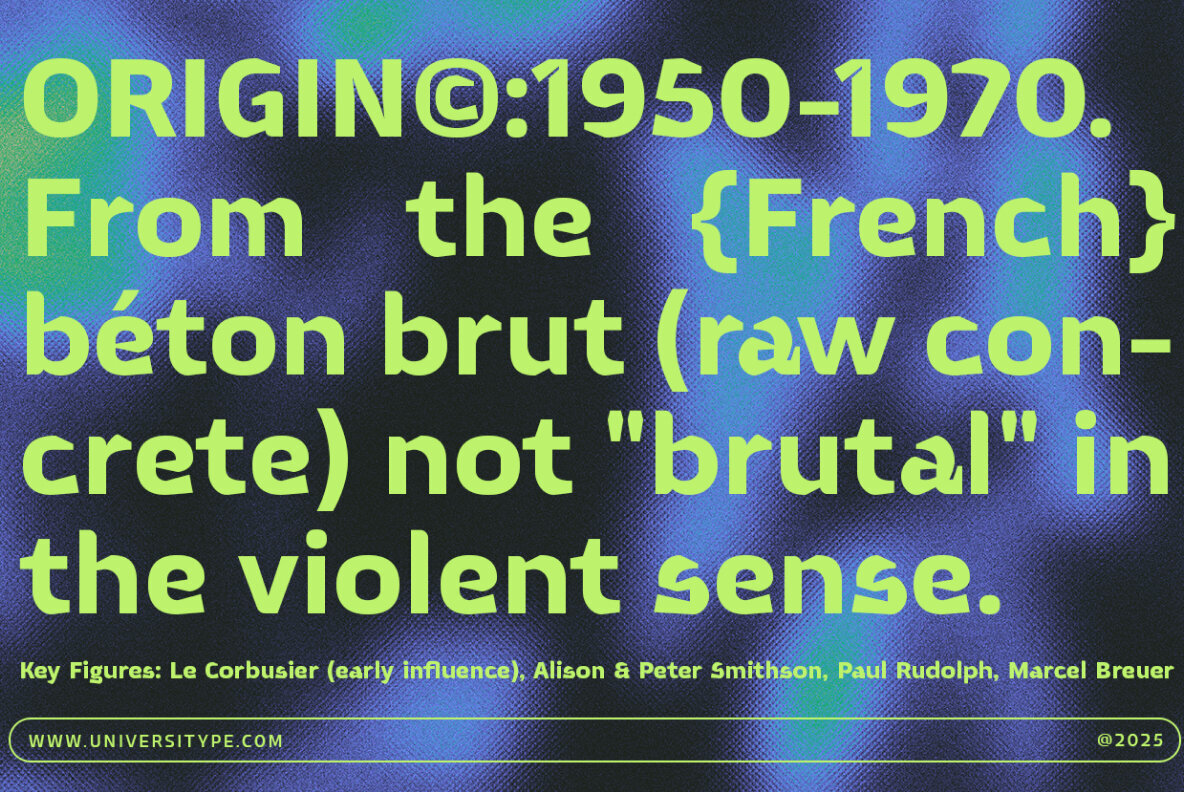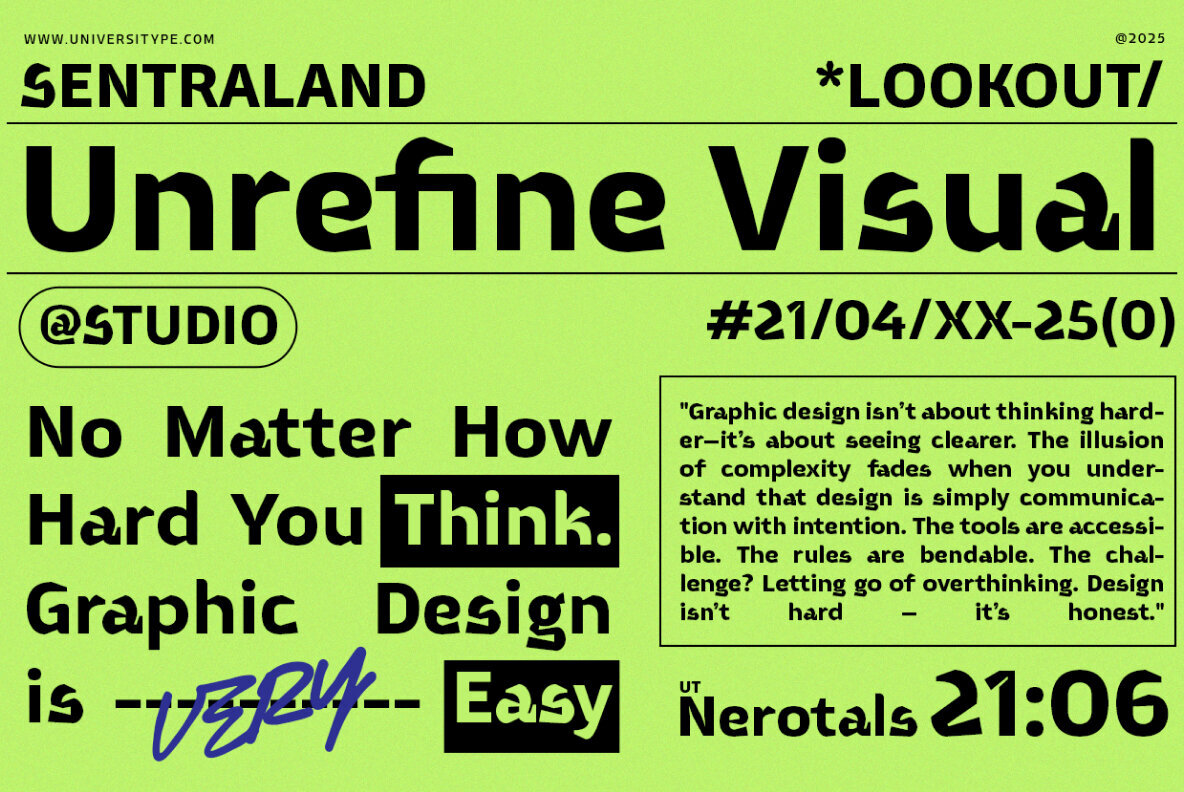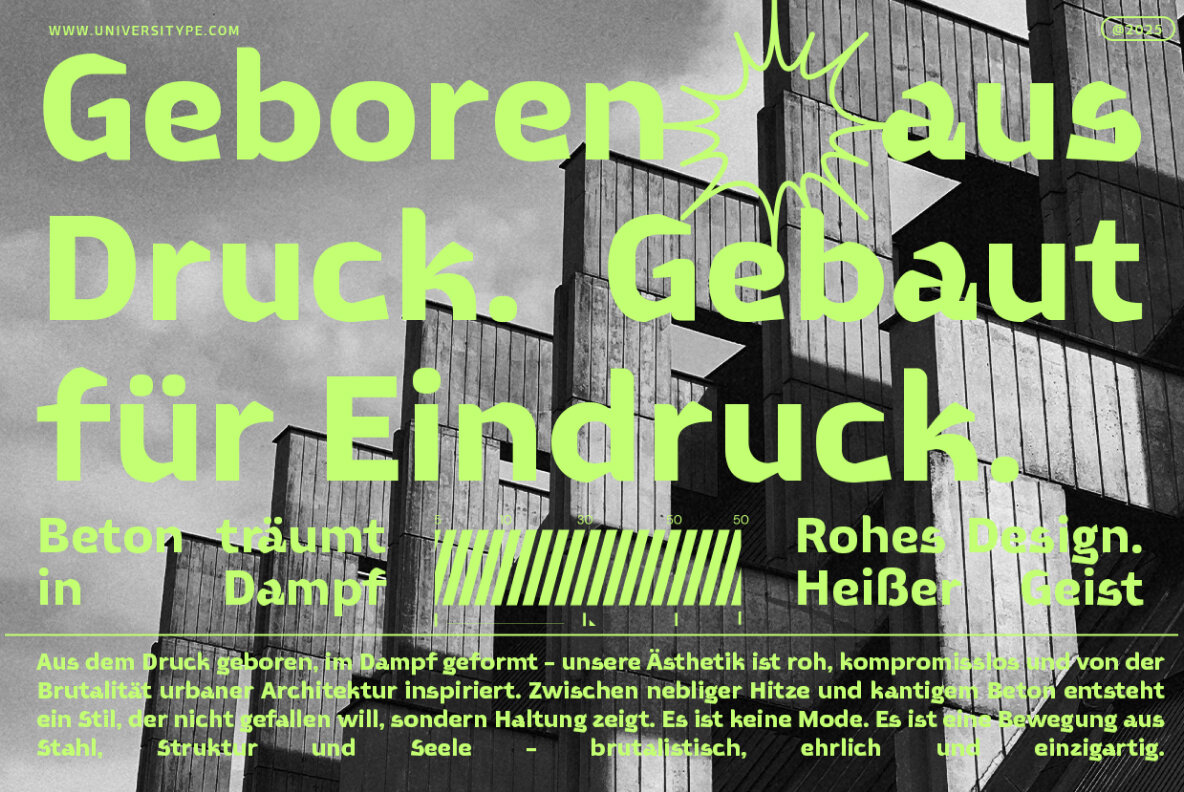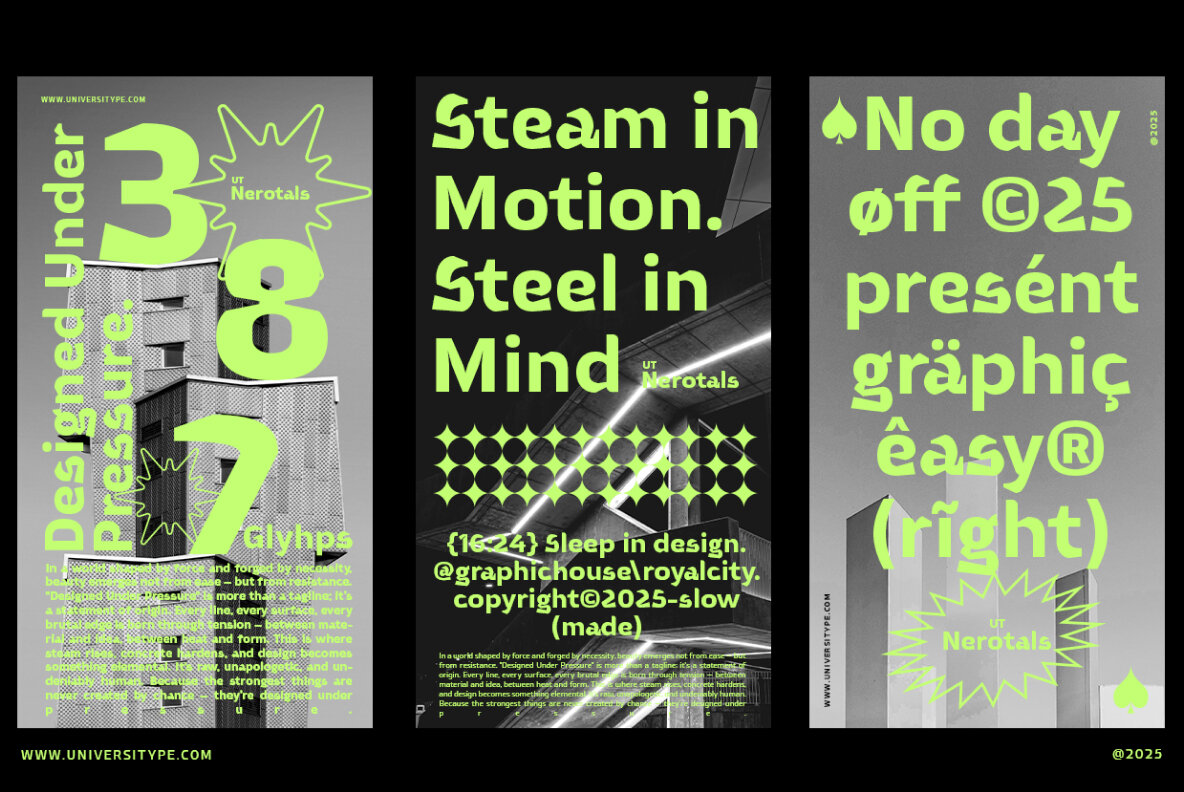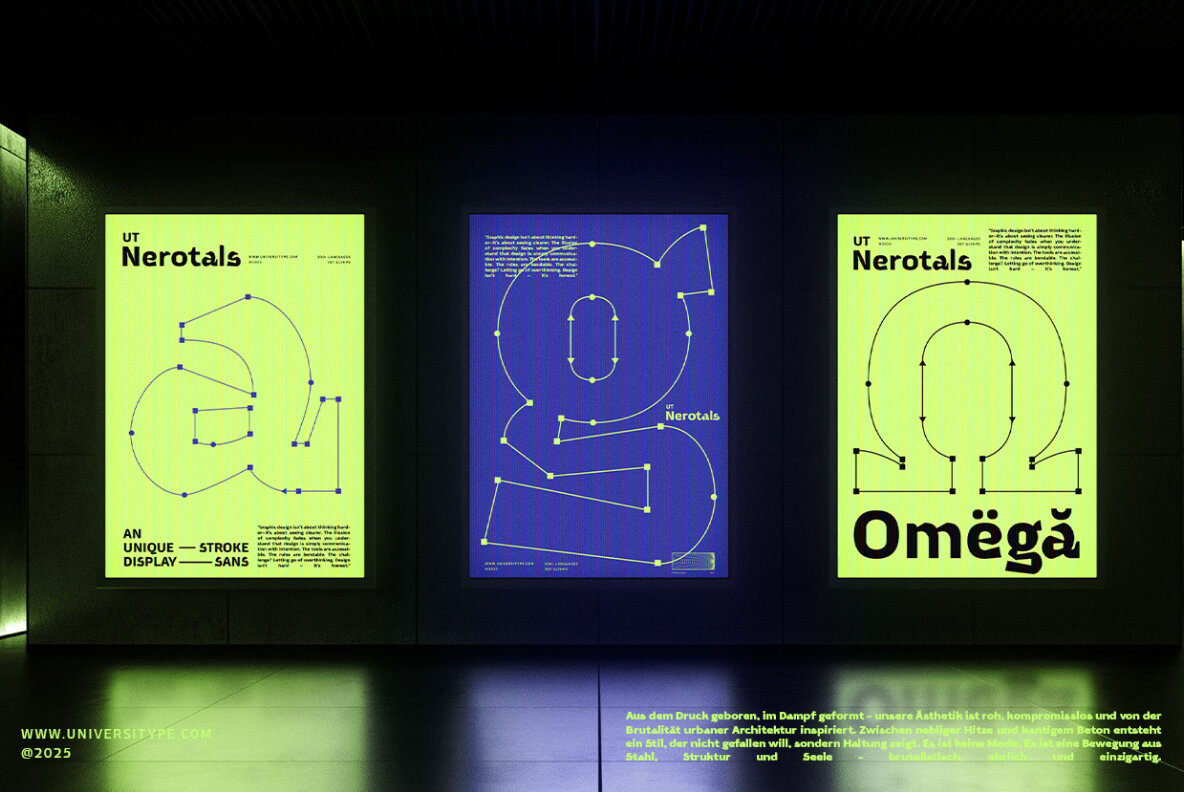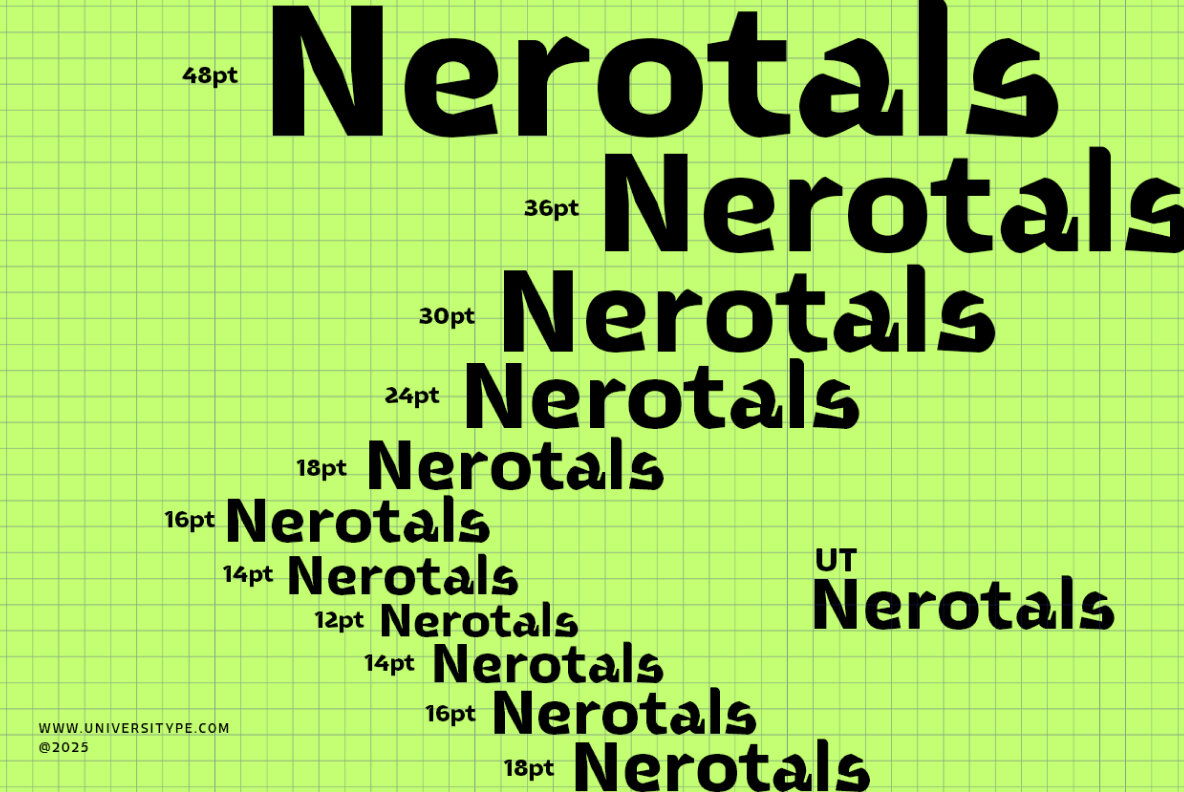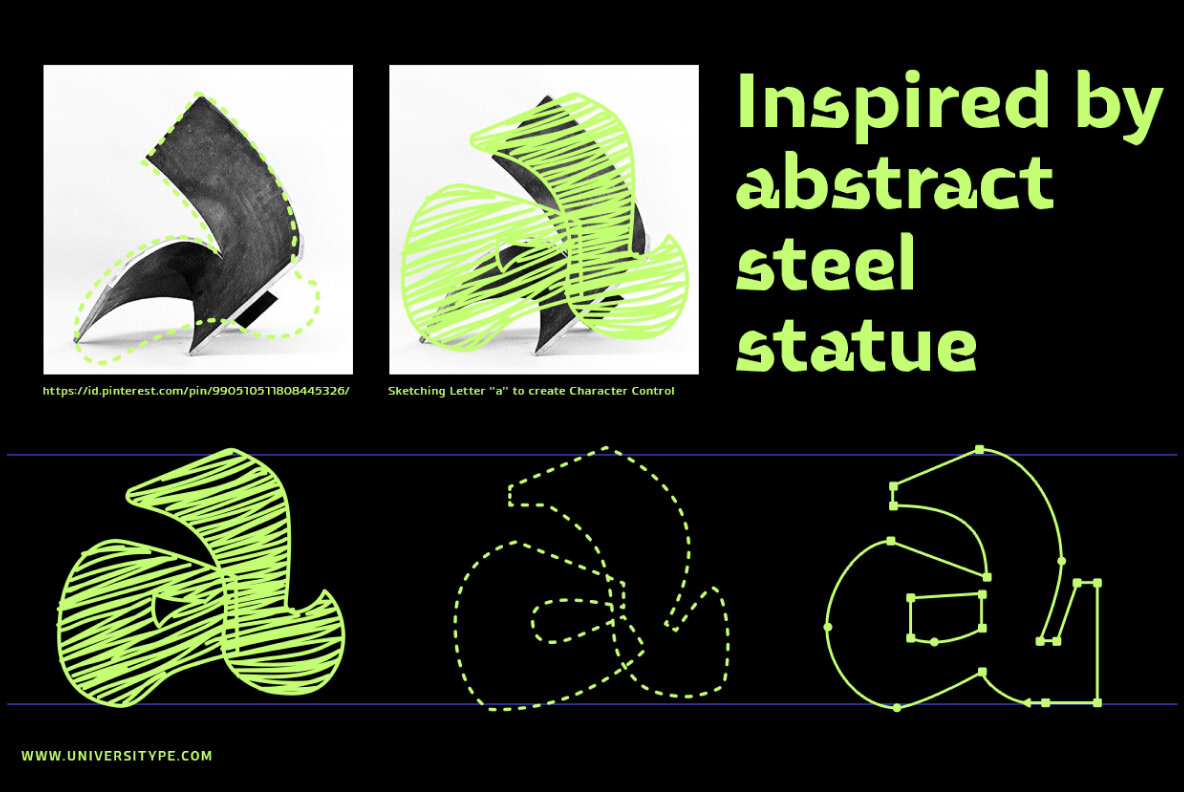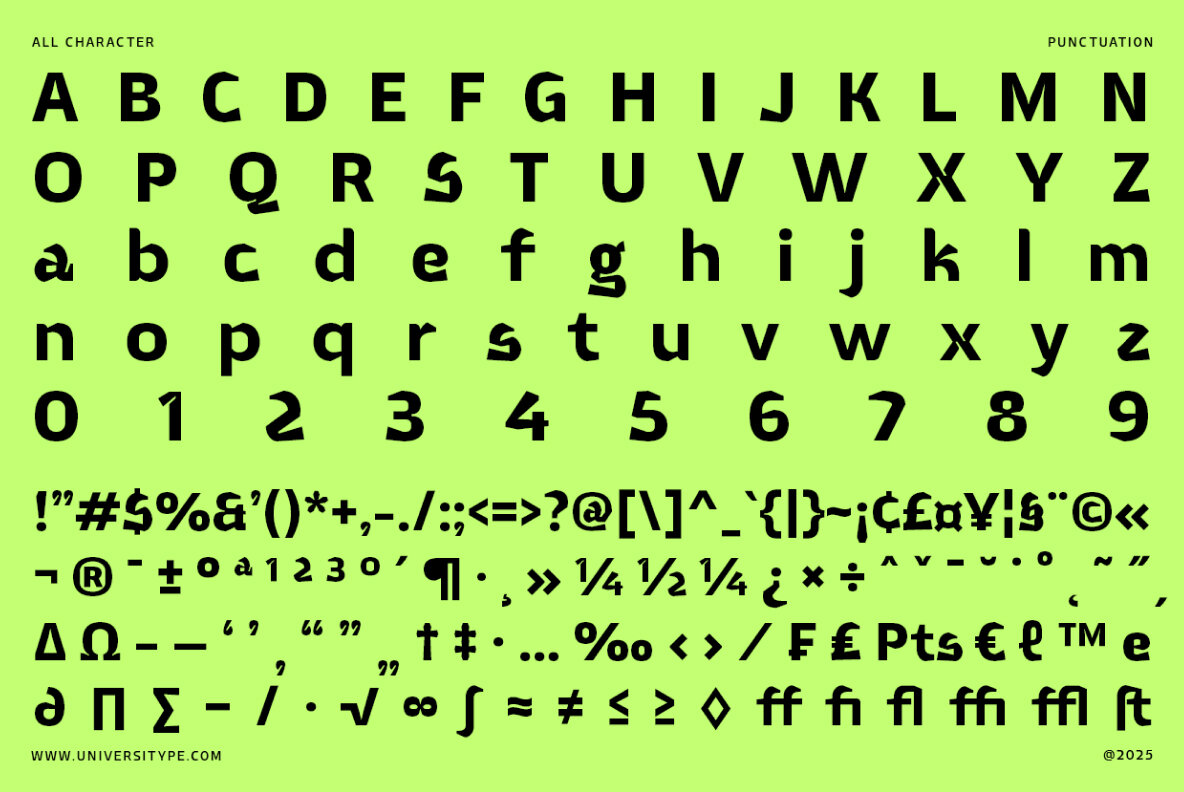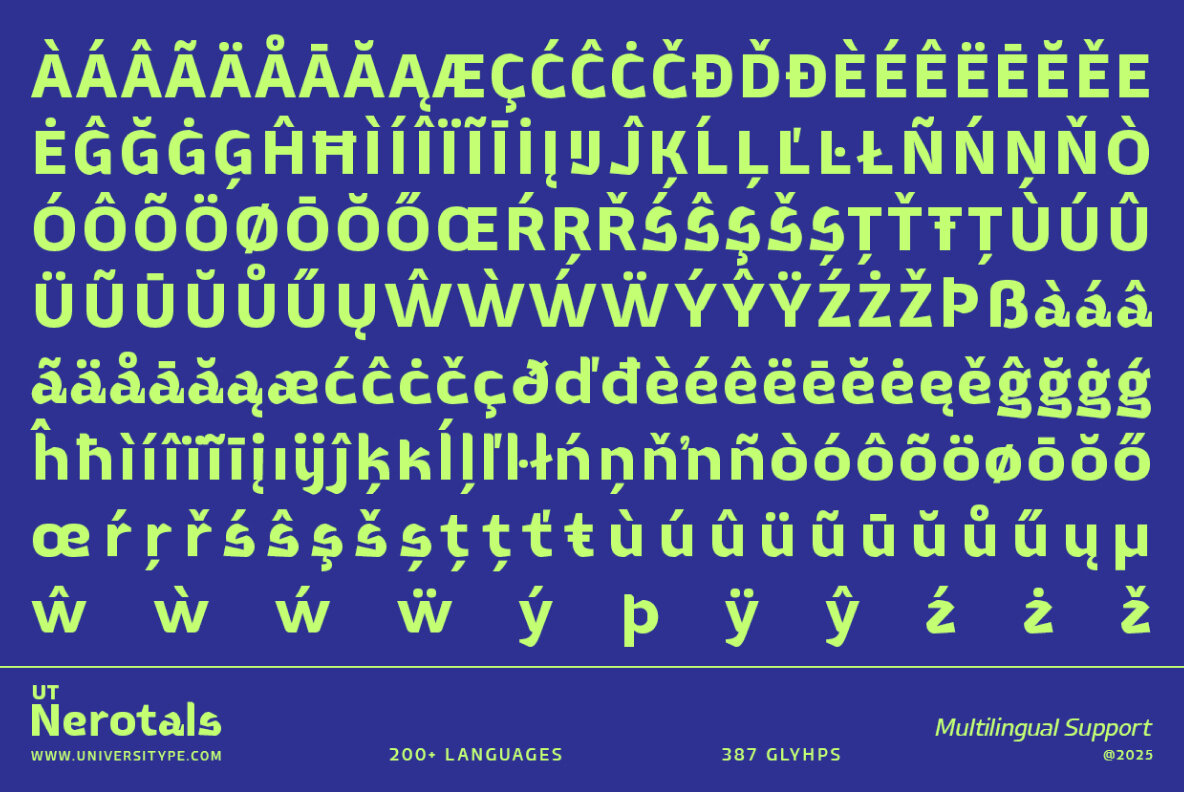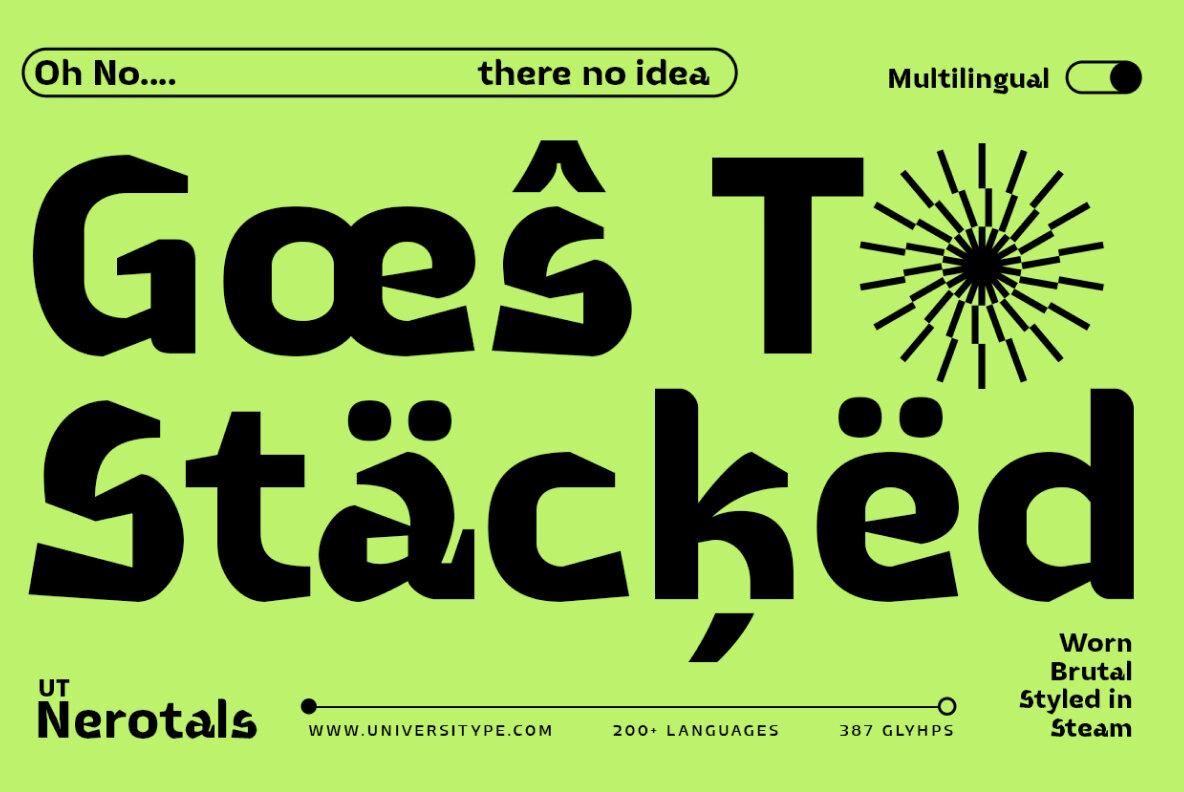
UT Nerotals Font
UT Nerotals Regular
Inspired by a remarkable sculpture that unites organic flow with geometric precision, UT Nerotals emerges as a typographic reflection of three-dimensional art. This typeface mirrors the sculpture's fluid contours and symmetrical balance, translating its aesthetic into a realm where design meets functionality. The profound interaction of light and shadow in the original sculpture guides the design ethos of UT Nerotals. Integrating gentling curves with sturdy structures, each letterform embodies both grace and strength, capturing the sculpture's dynamic duality. Celebrating the tactile allure of its muse, UT Nerotals fosters a sense of approachability and distinction. Its wide letterforms, smooth transitions, and inviting presence remind of the original's sculptural engagement. This typeface becomes a bold homage to the art of sculpture, transforming solid concepts into expressive designs.UT Nerotals: Sculptural Inspiration Transformed into Typeface